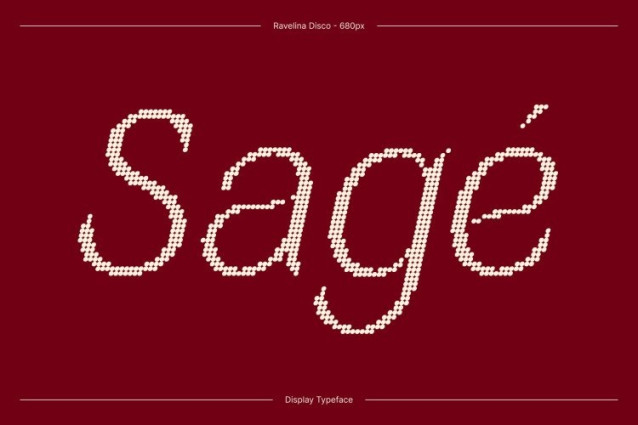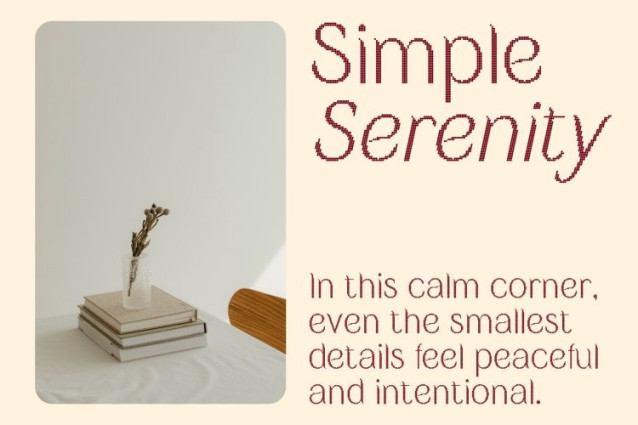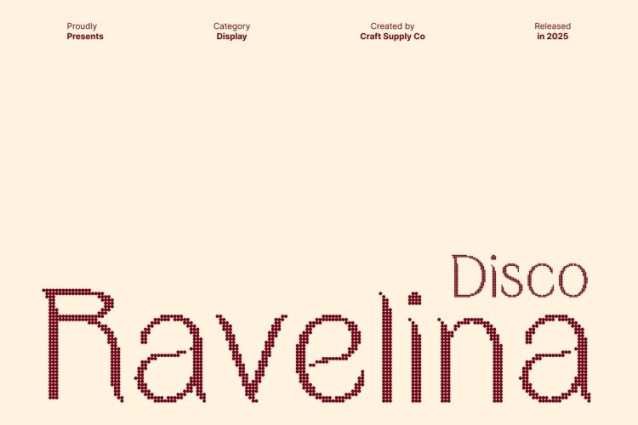
Ravelina Disco Font
Ravelina Disco Font This is a polished and sophisticated serif font designed to convey exclusivity and high-end elegance. Its carefully crafted letterforms combine timeless luxury with modern clarity, making it perfect for editorial layouts, premium branding, and upscale product packaging.
Disco Shimmer for Stylish Flair
Enhanced with a disco shimmer effect, this font adds sparkle and dynamic energy to every character. The shimmer transforms the classic serif into a glamorous, eye-catching typeface, making your designs feel modern, stylish, and visually captivating.
Perfect for High-End Branding and Invitations
This font excels in applications where elegance and visual impact are essential. It is ideal for luxury branding, beauty design, invitations, headlines, and editorial projects, providing a refined yet contemporary aesthetic that immediately elevates any design.
A Versatile Typeface Combining Sophistication and Glamour
This font merges the timeless charm of a luxury serif with modern disco-inspired sparkle, creating a typeface that is both elegant and dynamic. Its polished forms and glamorous shimmer make it perfect for designers seeking sophistication, style, and standout visual appeal.